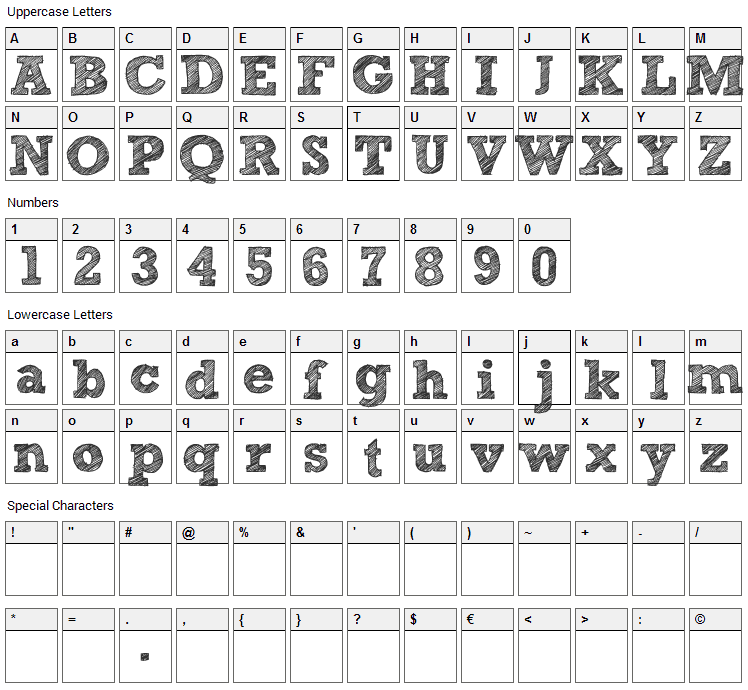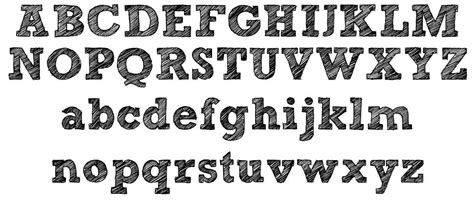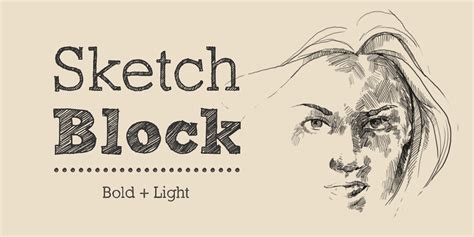
Sketch Block Font
Sketch Block Font - Perfect for crafting unique designs that catch the eye and spark. Sketched fonts have letters that are roughly drawn and not quite finished. Web unleash your creativity with our free sketched fonts! Sketch letters may be partially filled or. Web 3,989,267 downloads (72 yesterday) 118 comments free for personal use download donate to author.
Sketch Block font by artill.de FontRiver
Sketch Letters May Be Partially Filled Or.